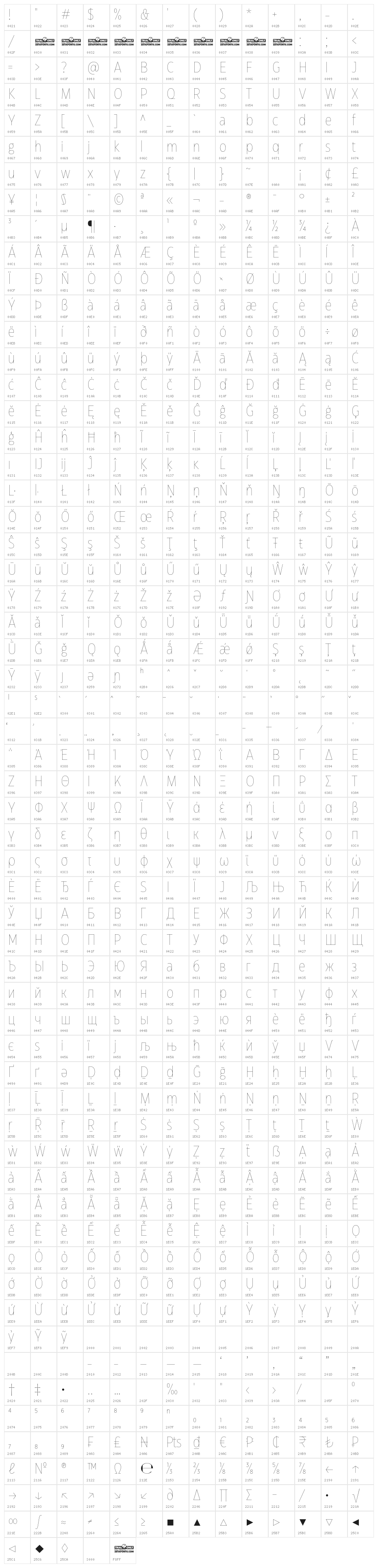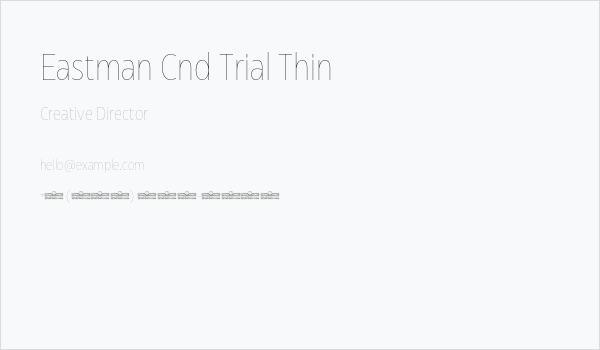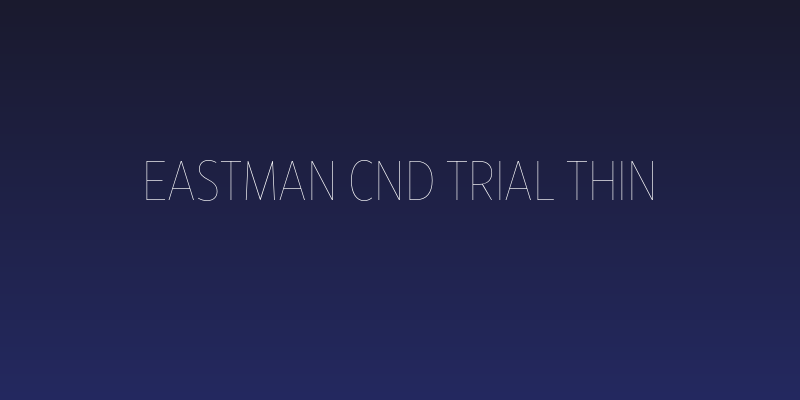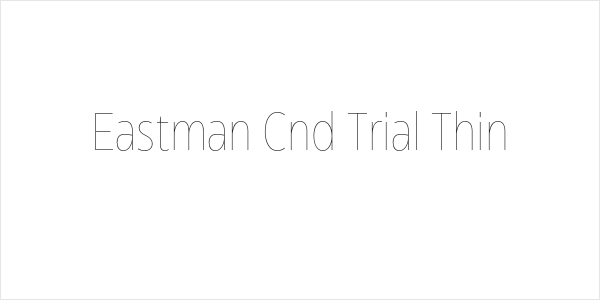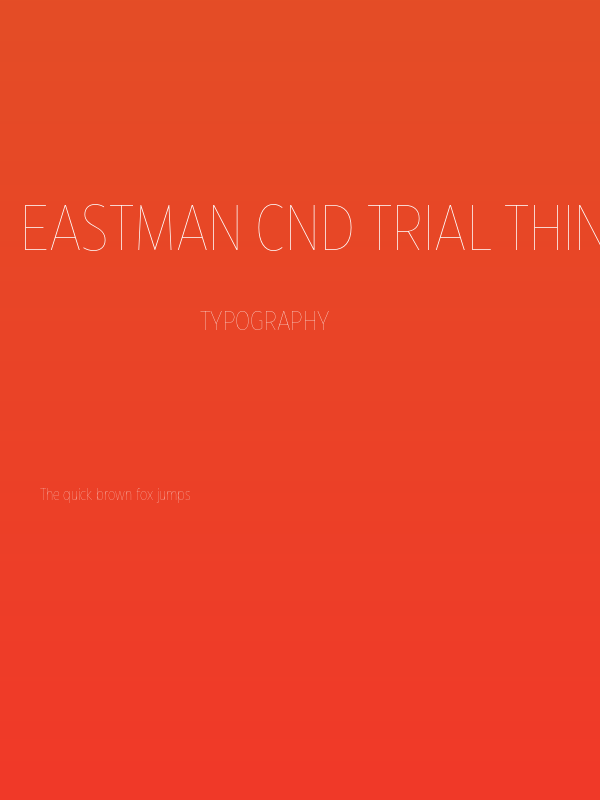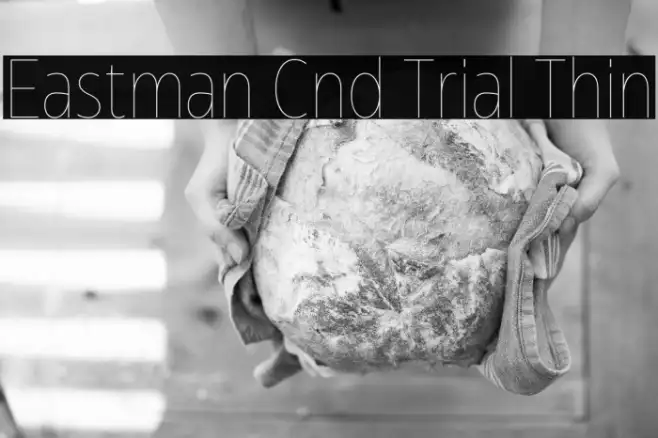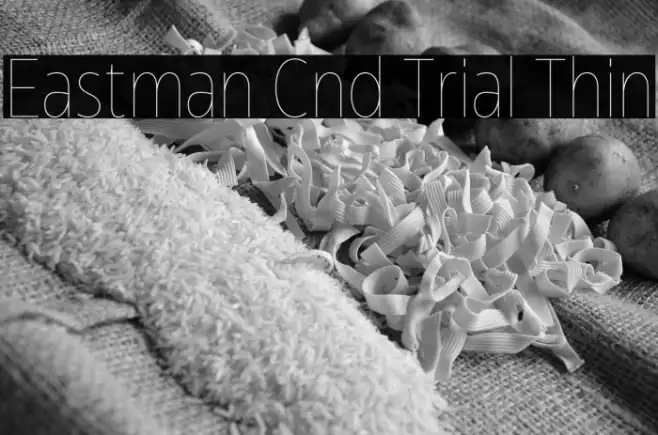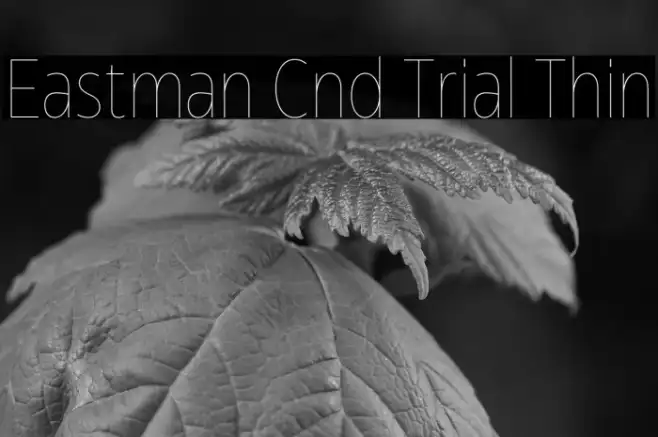
Eastman Cnd Trial Thin Font
Eastman Cnd Trial Thin Description
This font presents a sleek and modern aesthetic with its thin, clean lines and minimalistic design. The characters are elegantly crafted with a uniform stroke width, giving it a refined and sophisticated appearance. The uppercase and lowercase letters maintain a consistent style, with a slight geometric influence that adds to its contemporary feel. The numerals and special characters are designed to complement the alphabet, ensuring a cohesive look across all elements. This font's simplicity and clarity make it highly versatile for various design applications.